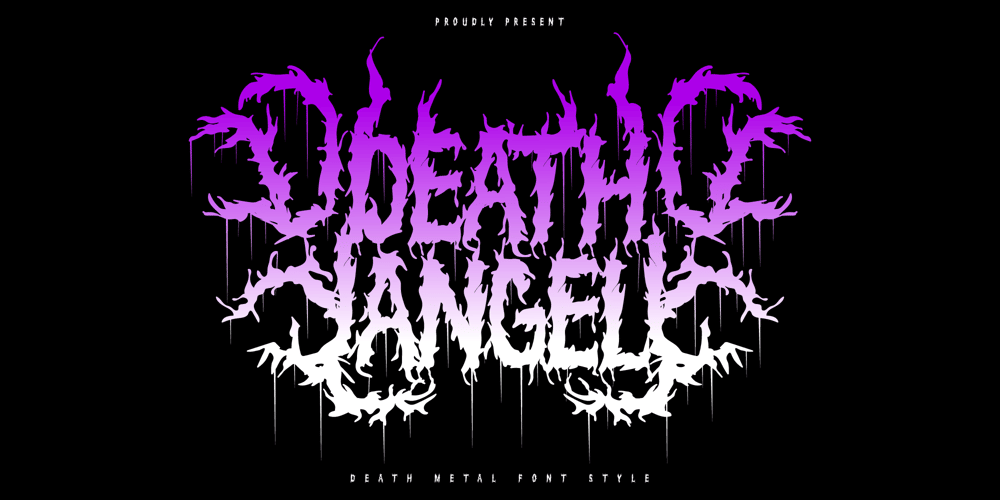
Death Angel
Death Angel font
Death Angel Font Family was designed by ryan creative and published by ryan creative. Death Angel contains 1 styles and family package options. Death angel has a strong and aggressive look with crisp, sharp lines. This font has hard angles and leans slightly towards the vertical, giving it a sharp, scary feel. accompanied by additional ornaments that you can custom style yourself. can be applied like, t-shirt design, product design group name, quotation etc.Note: For how to use this font, you can visit Ryan creattive youtube, or the link below; https://youtu.be/8XxjuAcXlbkFEATURES;-Uppercase,-Support Foreign, Numbers and Punctuation.-Ornaments.-Works on PC.-Simple installation.-Accessible in Adobe Illustrator, Adobe Photoshop. Adobe InDesign, it even works in Microsoft Word. -Fully accessible without additional design software.Death angel is coded with Unicode PUA, which allows full access to all additional characters without having to design any special software. Mac users can use the Font book, and Windows users can use the Character map to view and copy any extra characters to paste into your favorite text editor/app.thank you for visiting ๐Ÿ˜‰